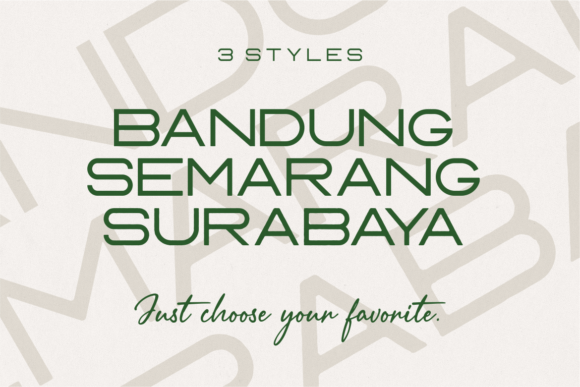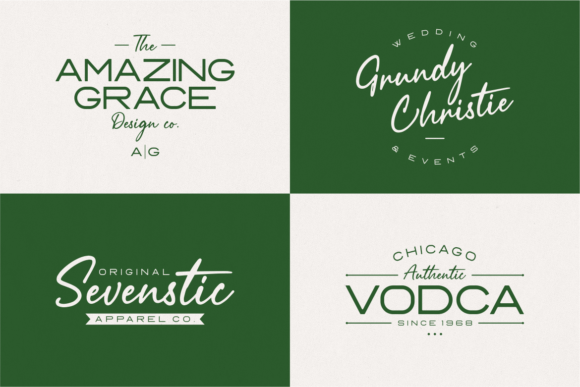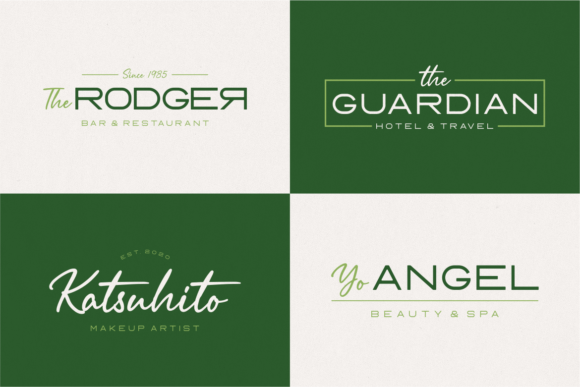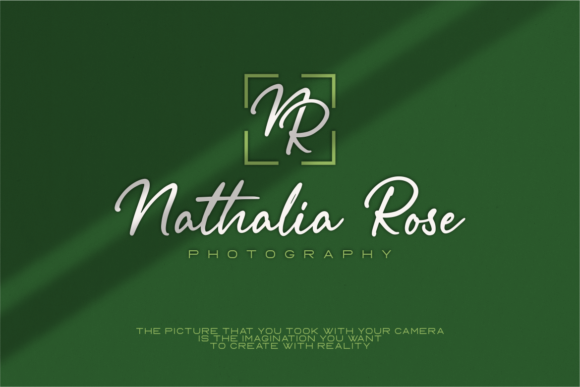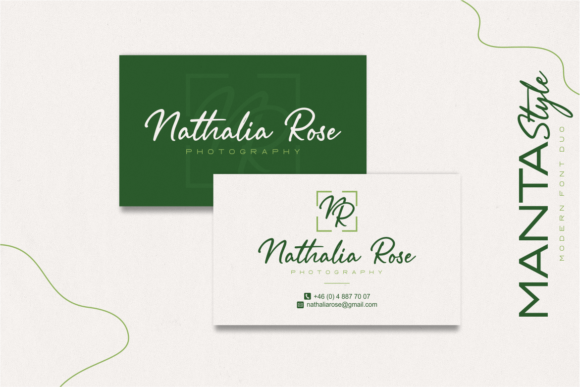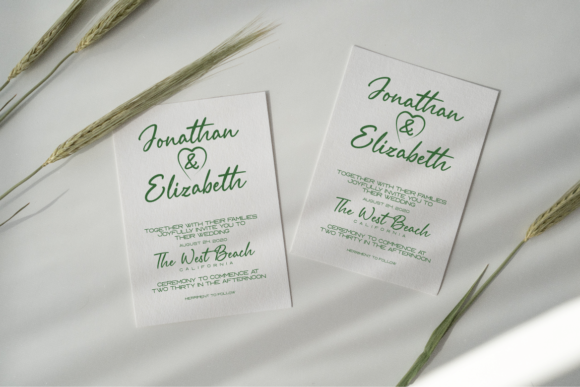
Introduction to Manta Style Font
Manta Style is a spectacular duo font (sans serif and script).
Incredibly versatile, this font fits a wide pool of designs, elevating them to the highest levels Add this font to your favorite creative ideas and notice how it makes them come alive.